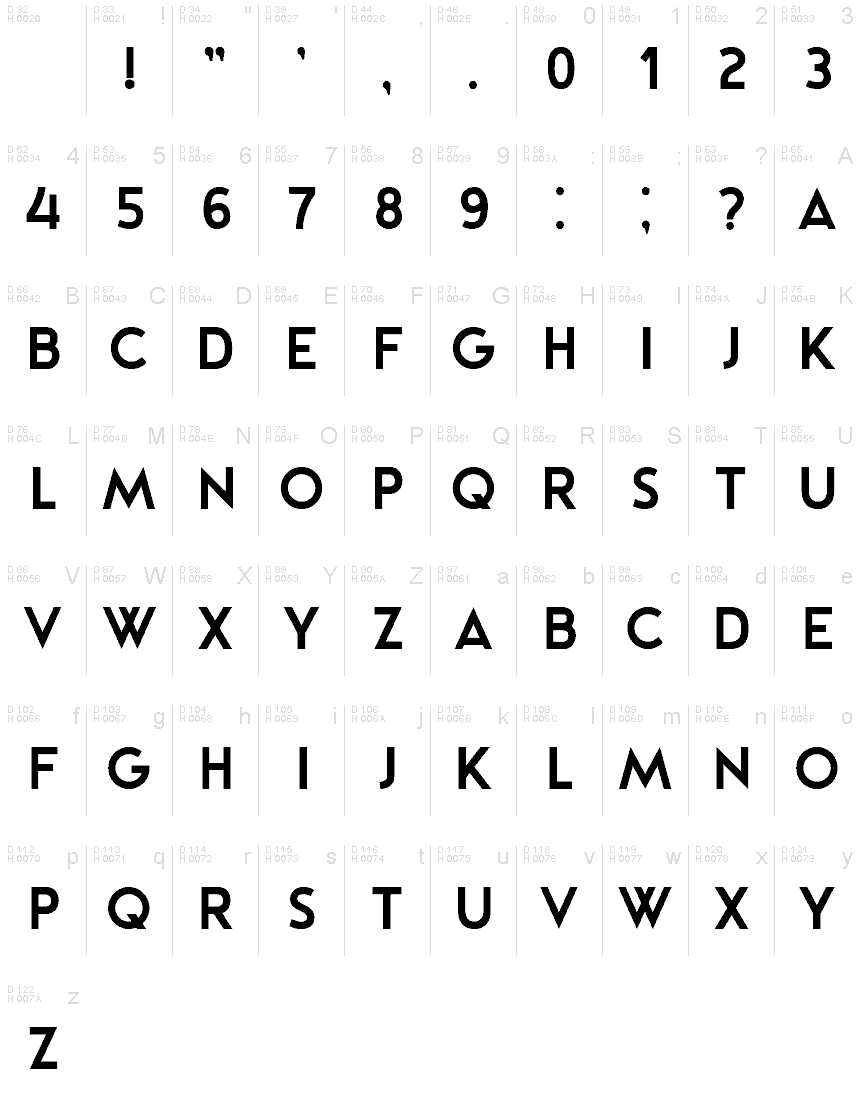
Napoli Regular
Napoli font by Vladimir Nikolic represents a minimalist sans serif style that’s clean and structured for maximum appeal. With geometric precision, Napoli appears modern and suited for projects that benefit from minimalism as a style where less becomes more. The typeface is best used on your projects where clear legibility is of utmost importance.